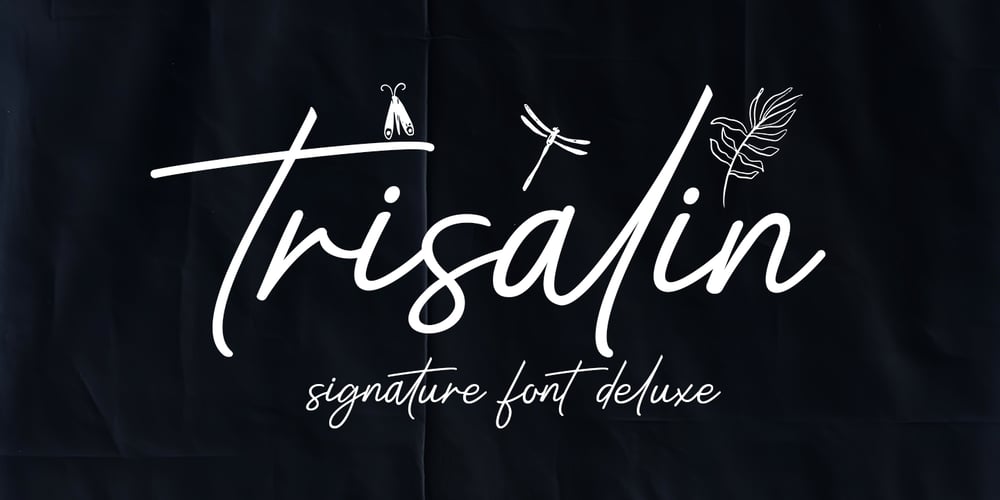
Trisalin Font Family was designed by Bustami Harun and published by Genesislab. Trisalin contains 1 styles and family package options. Trisalin Signature is a handwritten pen script style to be perfect for logos, branding, greetings, social media themes, and wedding invitation designs. It is also a great typeface for titles because of its smooth design and attractive appearance.If you have any questions please feel free to contact me!Thank You,